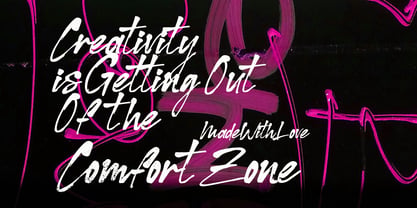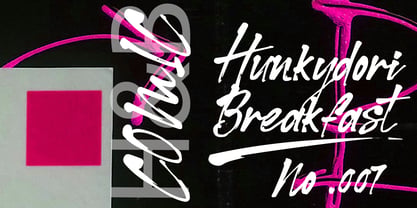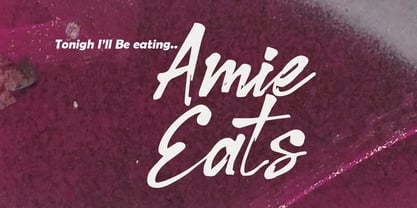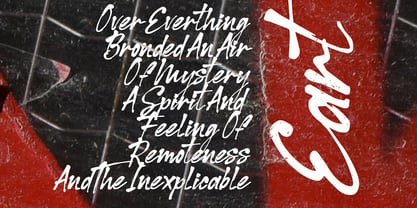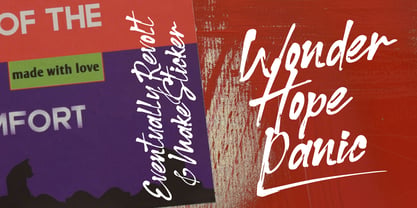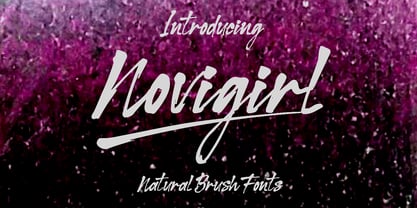
Novigirl brush
by Sulthan Studio
The Novigirl brush Font Family was designed by Nasrullah and published by Sulthan Studio. Novigirl brush contains 2 styles and family package options. More about this family
Discover the natural charm of this hand-stroked brush font, meticulously crafted using dip inks. Expressing the rawness of brush on paper, this unique typeface exudes a natural and down-to-earth feel. Imagine a rugged aesthetic blended with the romance of handwritten letters, each character featuring a unique stroke texture for a natural yet elegant finish. A perfect blend of classic art and contemporary design, this font brings authenticity and originality to your digital designs.